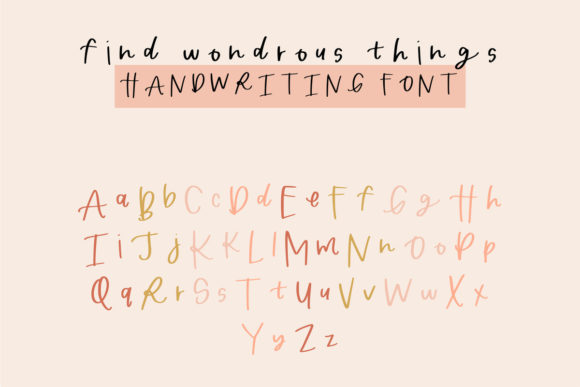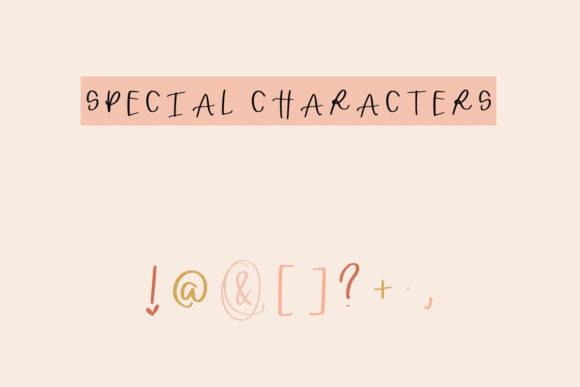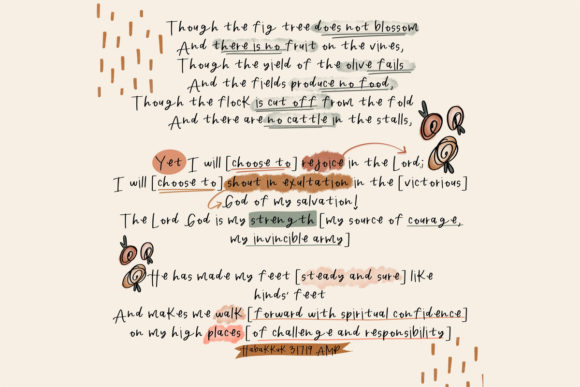
Find Wondrous Things Font
About Find Wondrous Things Font
Find Wondrous Things is a cute and quirky handwritten font. Its informal style and casual vibe will make this font a go-to choice for each of the creations that require a relaxed touch.